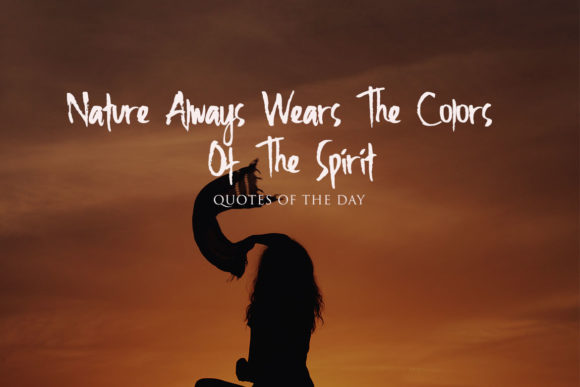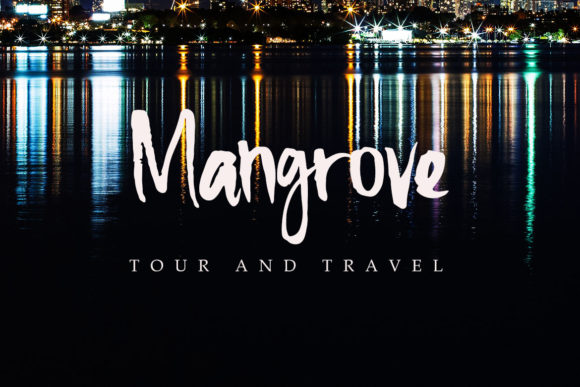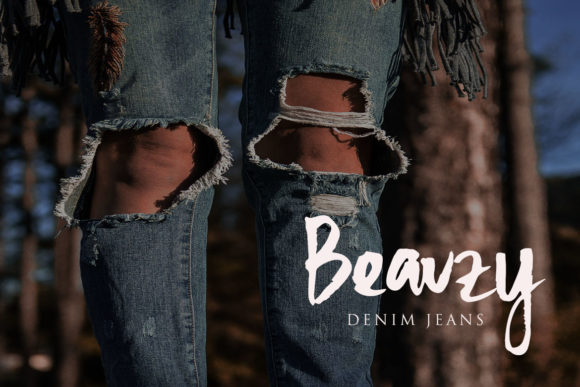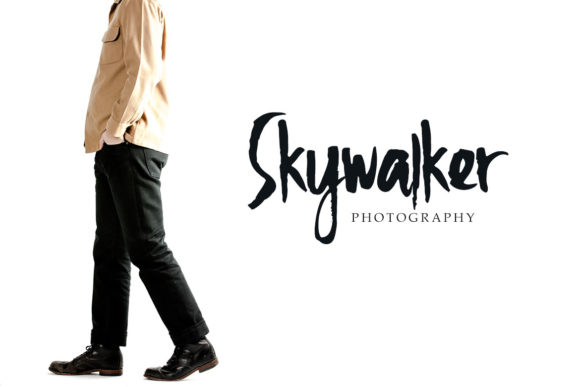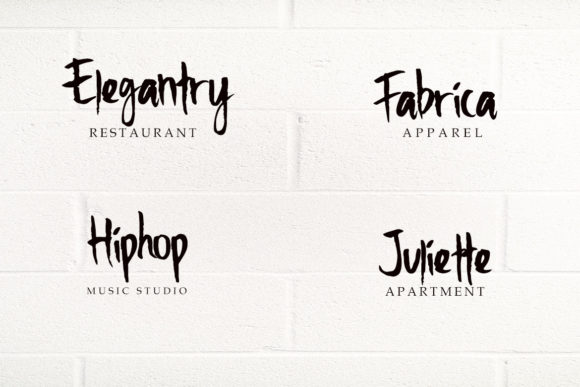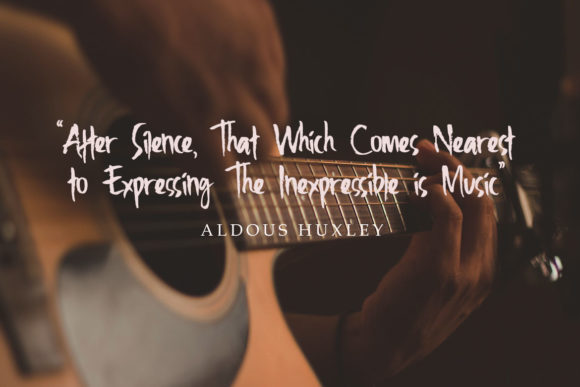
Willgate Font
About Willgate Font
Introducing The Willgate, a casual brush script font that adds a relaxed and laid-back vibe to your designs. This versatile font is well-suited for a variety of creative applications, including logos, branding, posters, quotes, and more.
The Willgate’s casual brush script style brings an effortless and approachable quality to your designs. Its versatility allows it to adapt seamlessly to different contexts, making it a valuable choice for a wide range of projects.
For logos and branding, The Willgate injects a sense of informality and friendliness, making your brand approachable and relatable. Posters benefit from its laid-back vibe, creating a visually engaging and dynamic look. Quotes come to life with the casual brush script, adding a touch of personality and authenticity.
The adaptability of The Willgate extends to various other design applications. Whether you’re working on social media graphics, packaging, or any project that could use a relaxed and casual touch, this font is a versatile and reliable choice.
In summary, The Willgate is more than just a font; it’s a design tool that brings a casual and approachable brush script to your creative projects. Embrace its versatility, and let The Willgate add a laid-back vibe to your logos, branding, posters, quotes, and more, enhancing your designs with a touch of informality and charm.